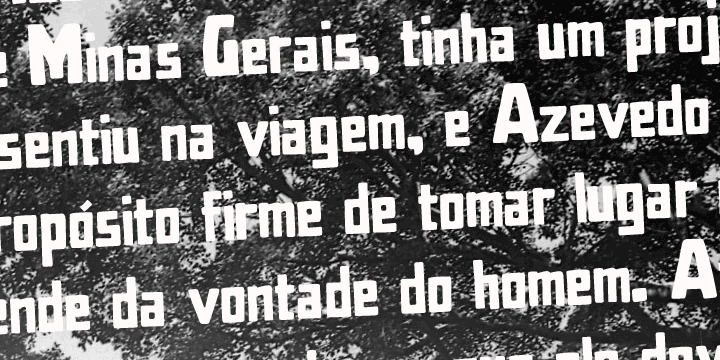
Mercearia Antique™
Designed by: Ricardo Marcin, Erica Jung
Designed when: 2009
Design owned by: PintassilgoPrints
Mercearia is a bold typestyle font, based on a 1944 Brazilian book about alphabets and letterings styles.
Combining squarish letterforms and soft edges with a handcrafted feel, Mercearia is best suited for display sizes and works like a charm from 18pt and up.